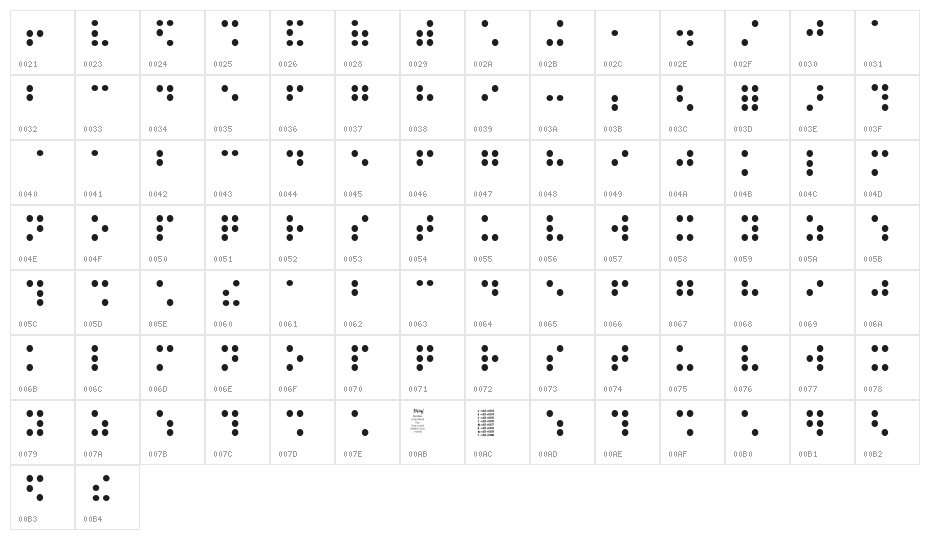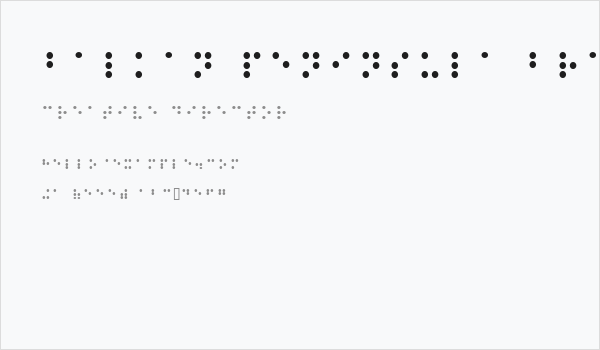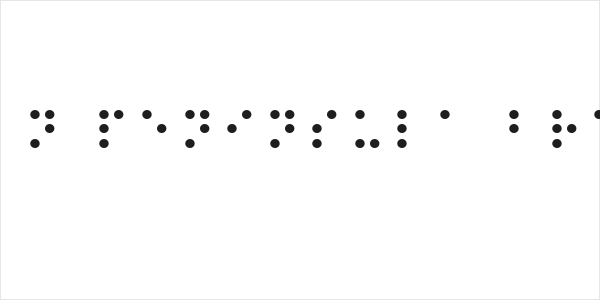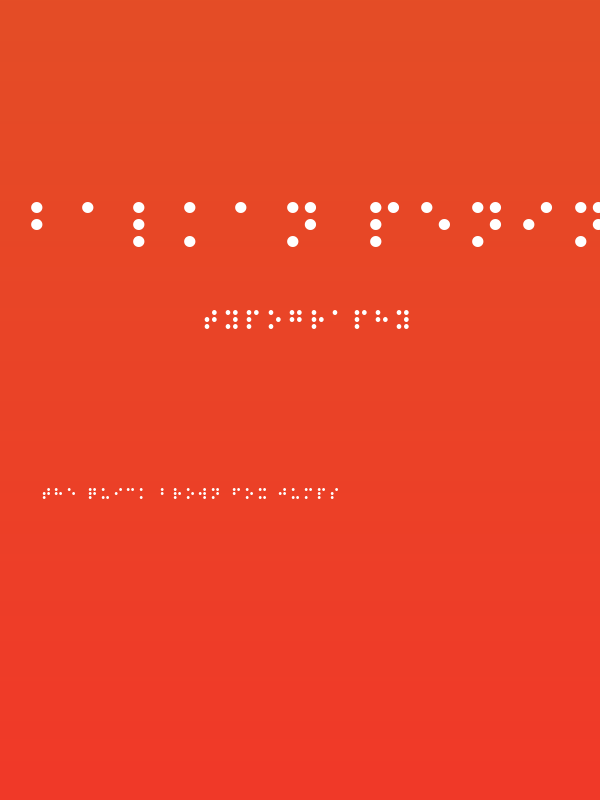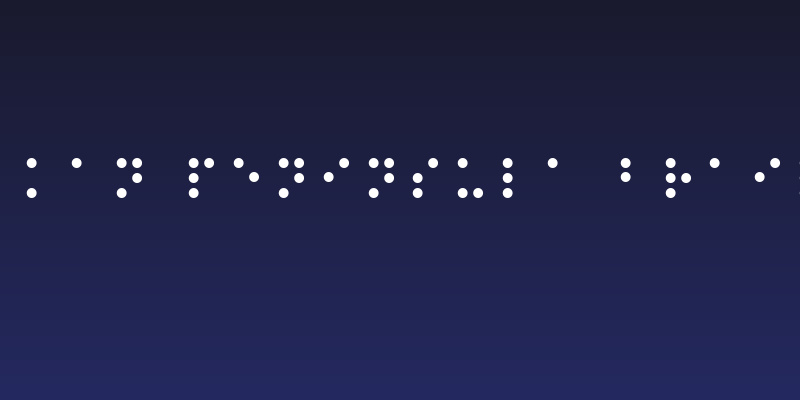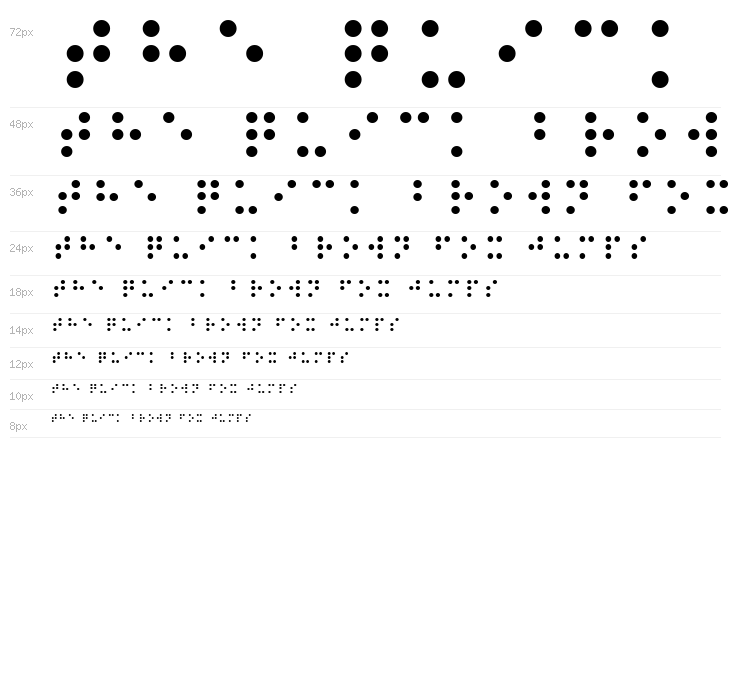
Balkan Peninsula Braille Font
Balkan Peninsula Braille Description
A tactile font composed of evenly spaced, raised dots arranged in rectangular cells, designed for visually impaired users to read by touch. Each character is represented by a unique pattern of dots, maintaining consistent size and spacing for clarity and legibility.
| Overall Style | Functional, Accessible |
| Use Case | Braille documents, tactile signage, accessibility tools. |
| Proposed Projects | Accessible signage, educational materials for the visually impaired, Braille books, tactile labels. |